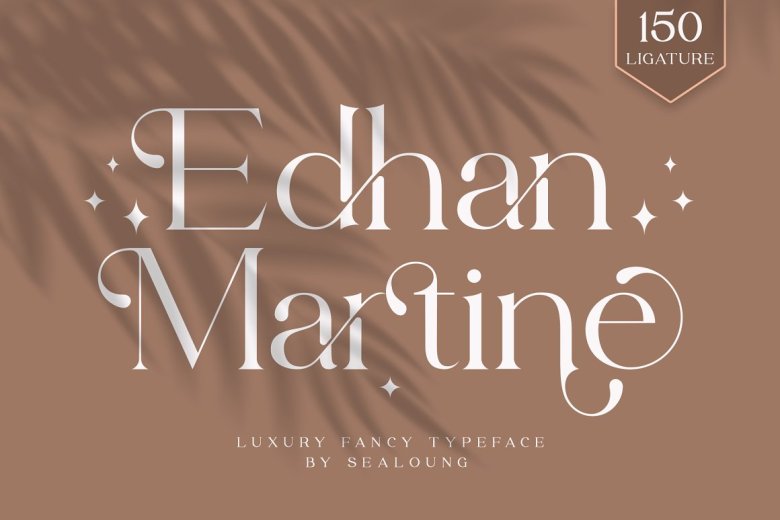
Edhan Martine Font
Based on my experience as a graphic designer, I have worked with many companies with various ideas of a logo, and mostly a unique one with an elegant shape. So, I try to brainstorm and create this font for me to get ideas out on top of that. so I present you Edhan Martine Urban Signature Font. Edhan Martine – Urban Signature Font Style It will be perfect for BRANDING and LOGO DESIGN. You are going to make a classy, elegant, and of course, a truly unique design for this. I created 150 ligatures for more unique looks, so you can design what you want amazingly.
Edhan Martine Serif Font